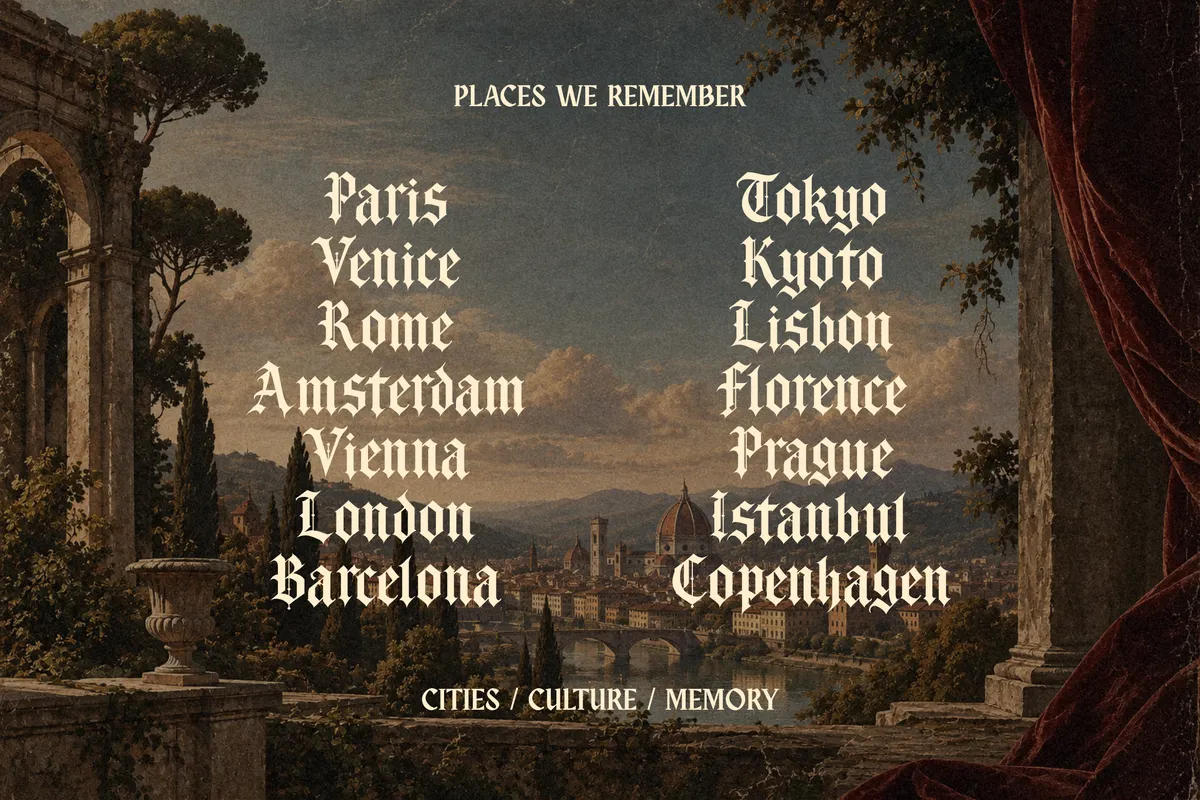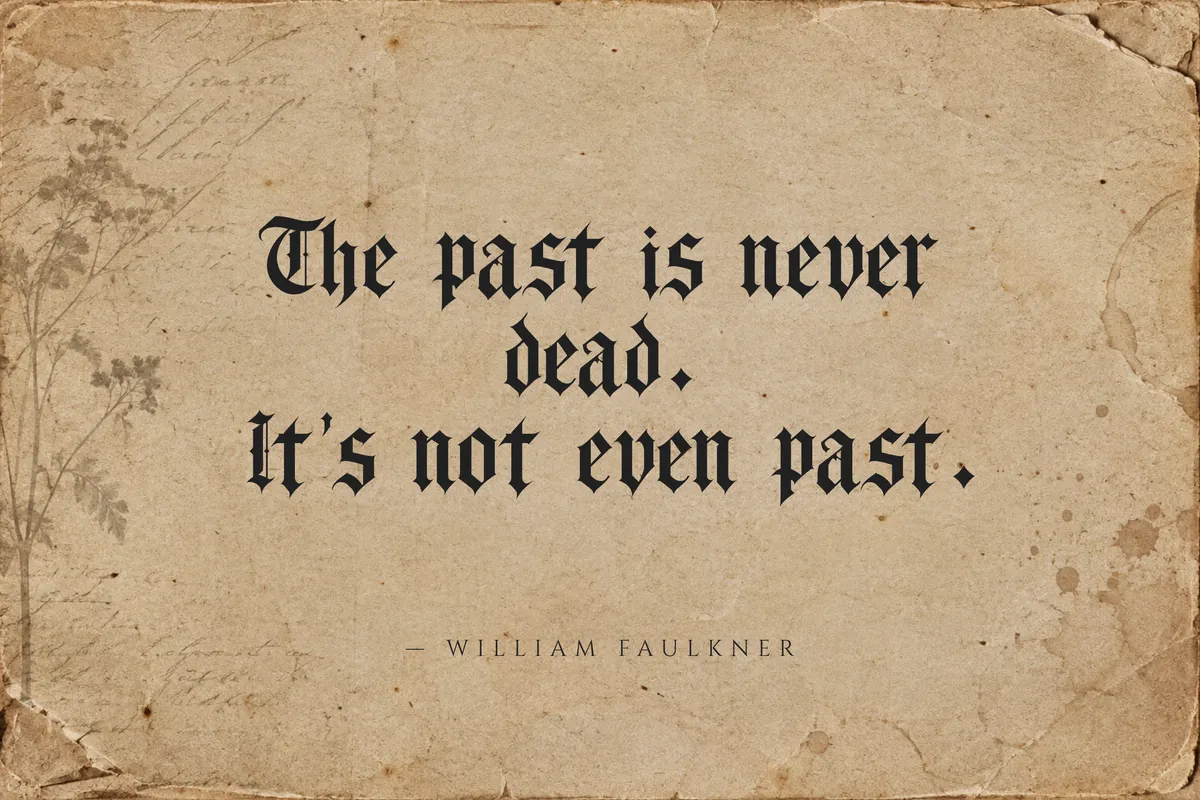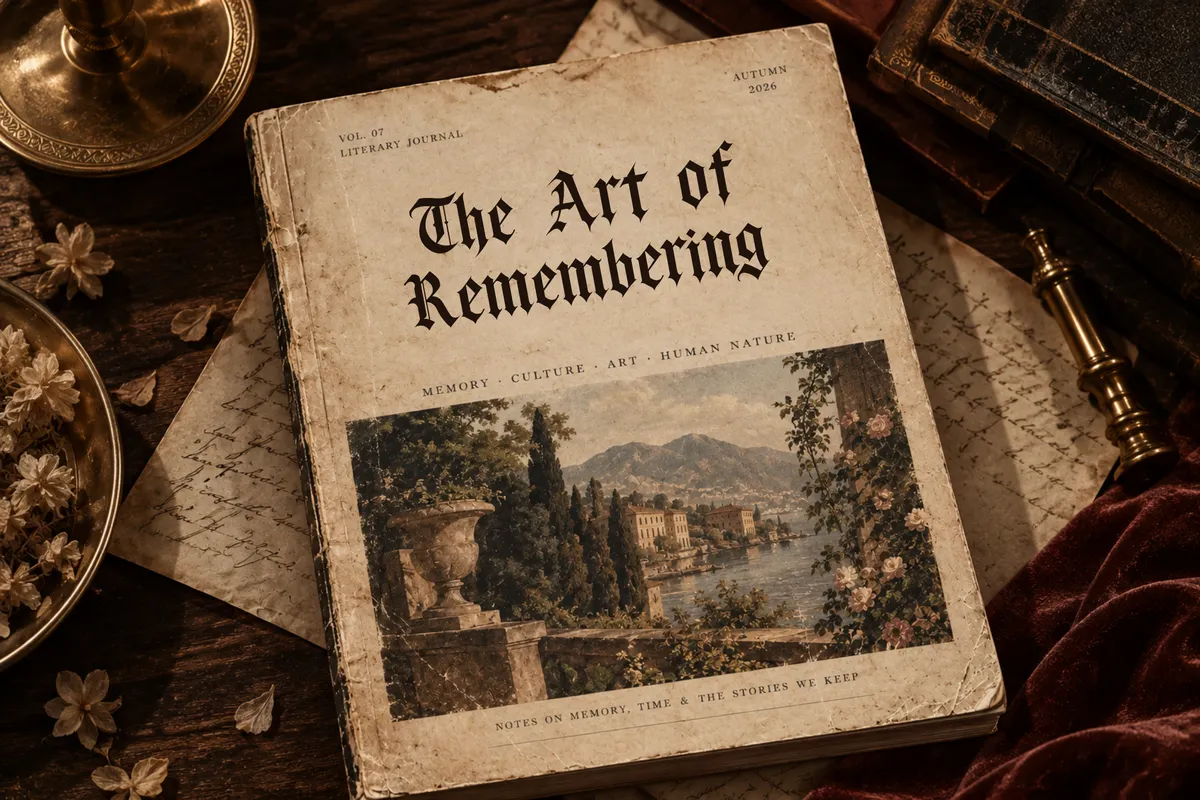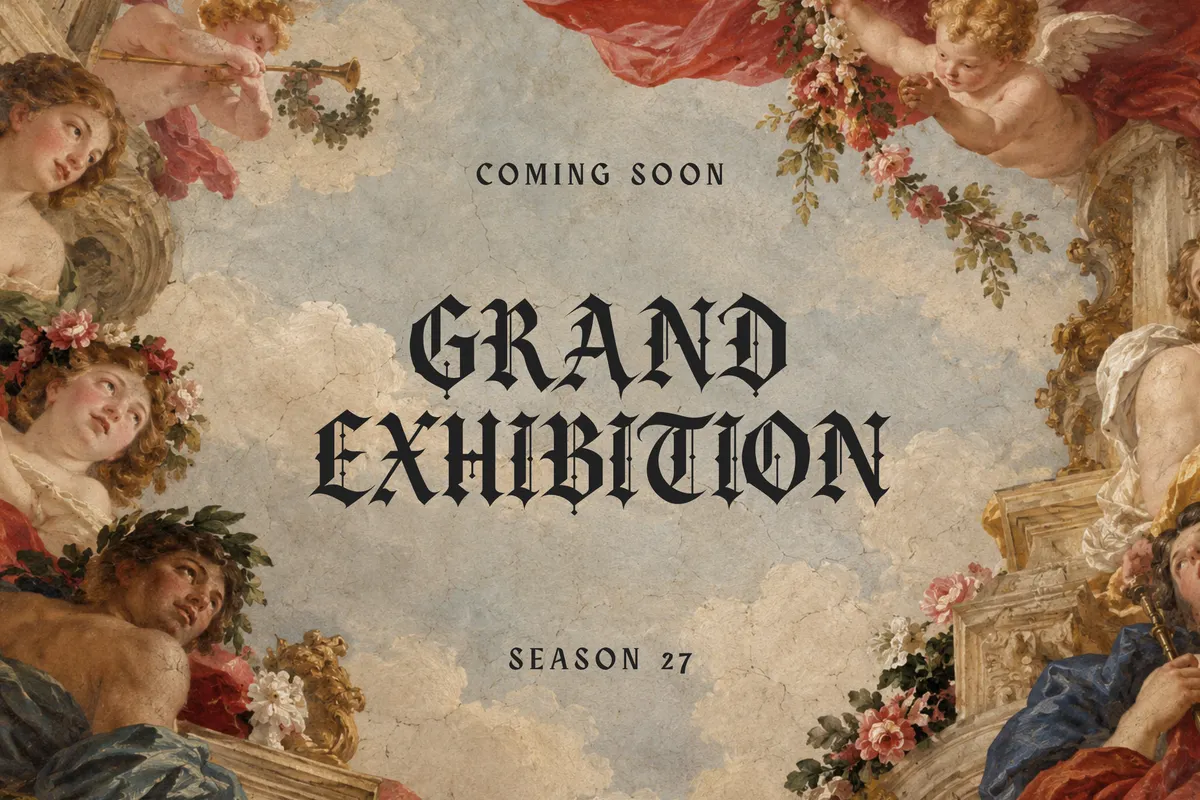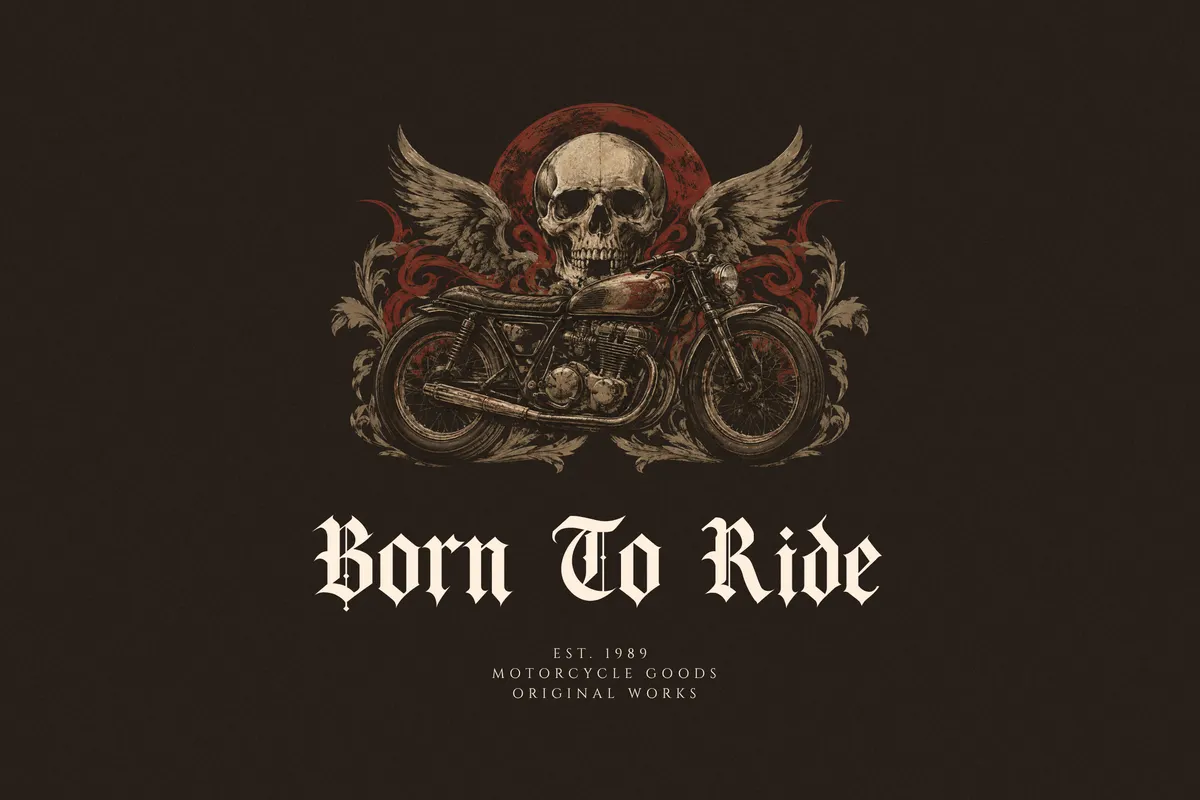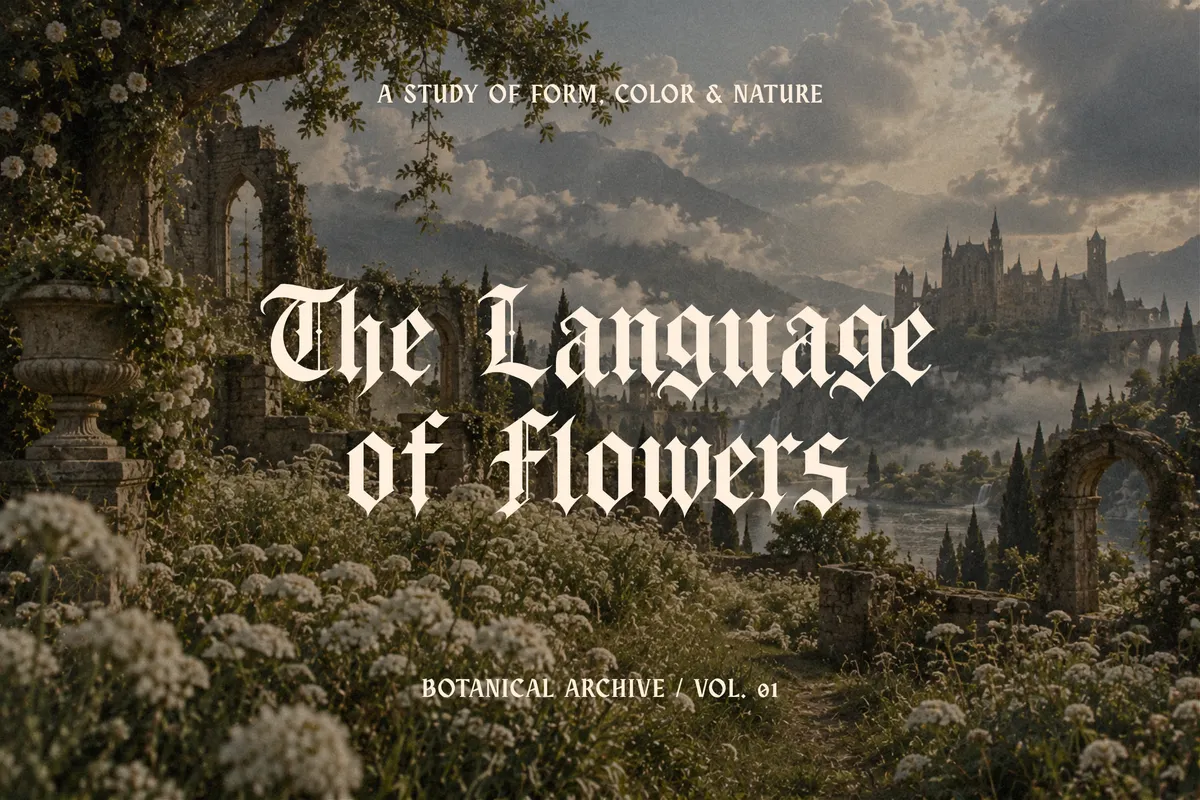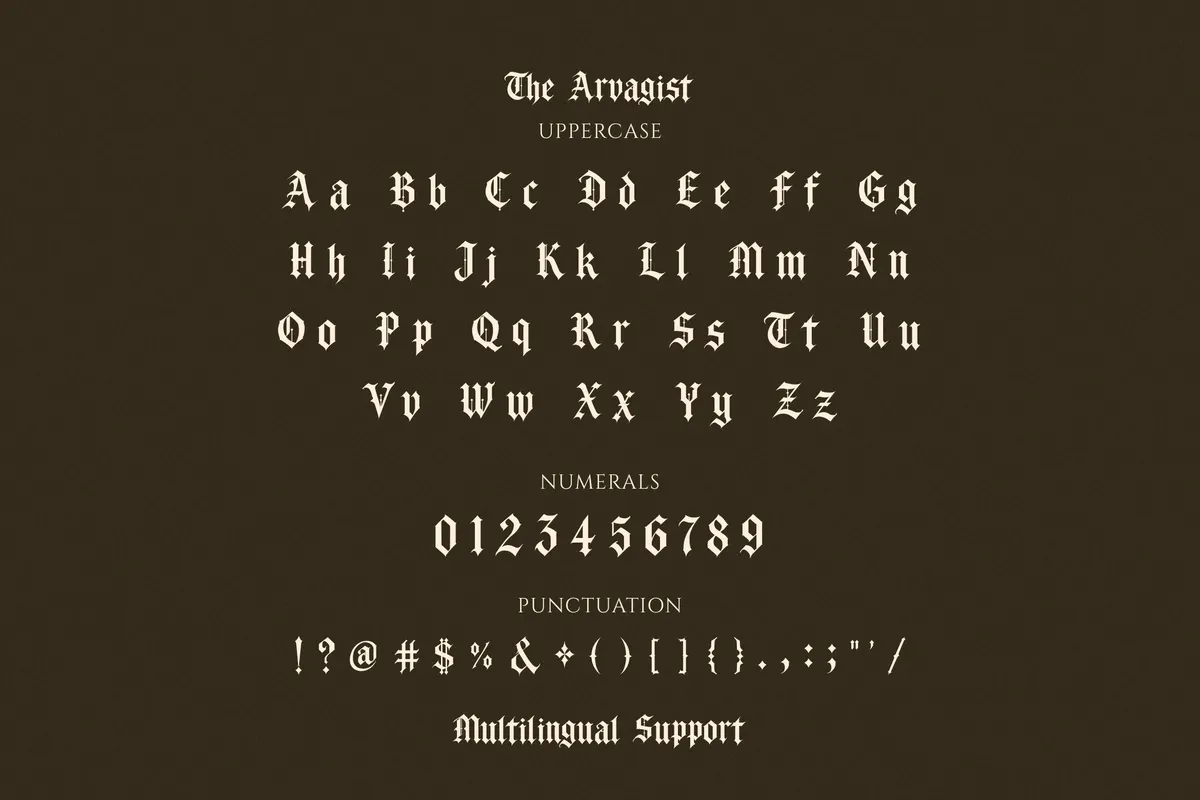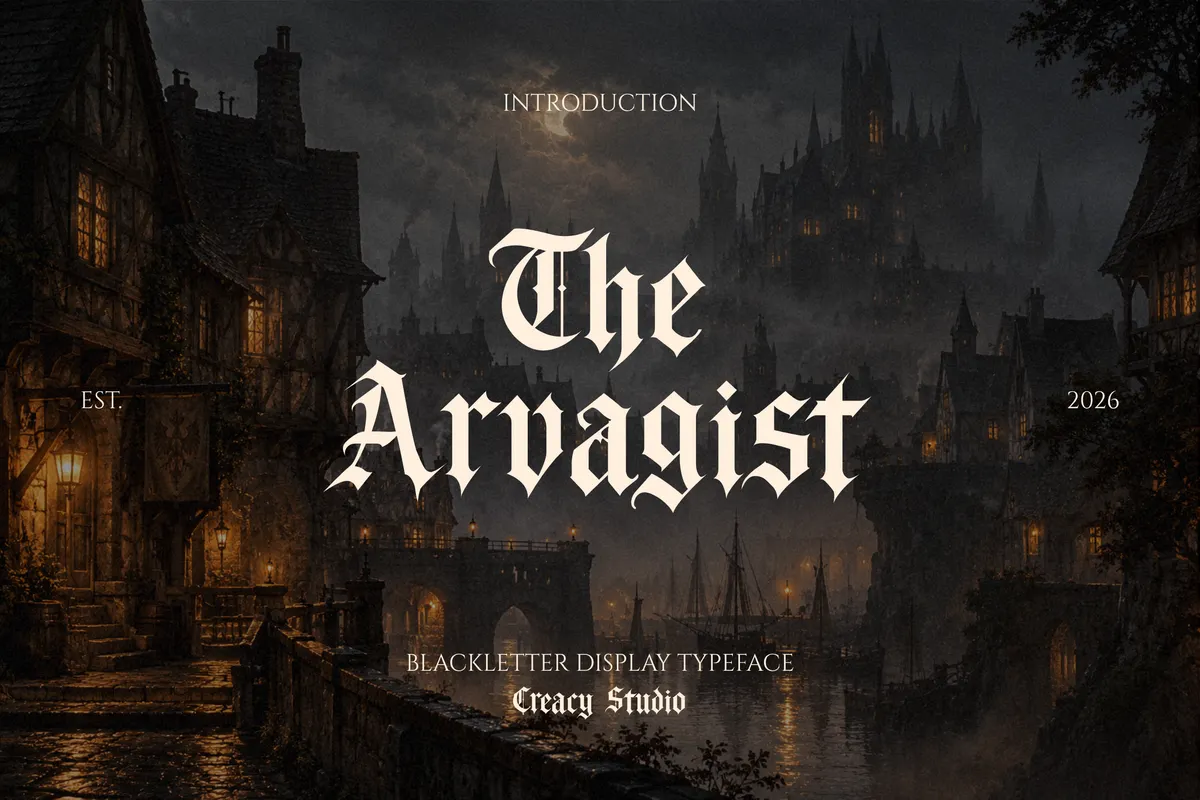
The Arvagist - Blackletter Display Font
The Arvagist draws bold, ornamental blackletter capitals with dramatic proportions, closer to a medieval manuscript than a clean gothic revival. Uppercase and lowercase are built as two distinct alphabets, so the blackletter keeps real contrast and texture at both cases.
Use it for titles, logos, posters, editorial compositions, album artwork, branding, packaging, and invitations that want a dark, historical edge.